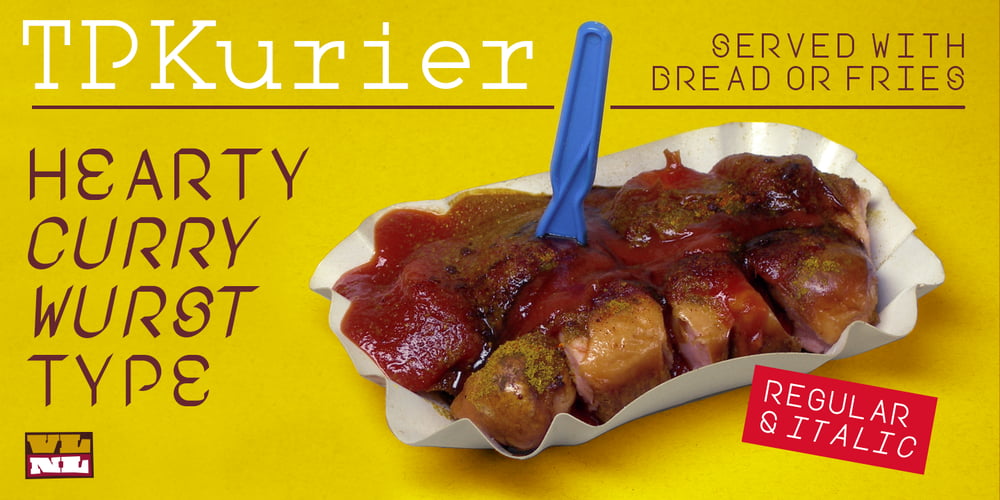
VLNL Tp Kurier Font Family was designed by Martin Lorenz and published by VetteLetters. VLNL Tp Kurier contains 6 styles and family package options. VetteLetters is proud to bring you the TpKurier-family. It is cooked up by our German chef Martin Lorenz currently living in lovely Barcelona! Chef Lorenz about the TpKurier recipe: “TpKurier is the second redesign we did of Courier. The first redesign in 2000, although based on a five-unit grid, was drawn completely by hand. Six years later we designed another grid version of Courier, and the TpKurier family was born. This version is completely constructed up till its last detail. We didn’t want to correct ‘mistakes’ deriving from the use of the grid, but instead make them visible (see “S”). TpKurier is based on a very simple grid, composed a proportion of four units high by two units wide. A series of other links between them make it possible to form a font from this grid. We felt it was important to consistently work within these limitations so that any unexpected asperities would help provide the font with its character. Even though it is a rough constructed typeface it was important to us to design real italic lower case letters and not just a sloped roman (see “a”, “g” or “s”). The first family published contained a serif and sans-serif version of the TpKurier, with italic and bold.”